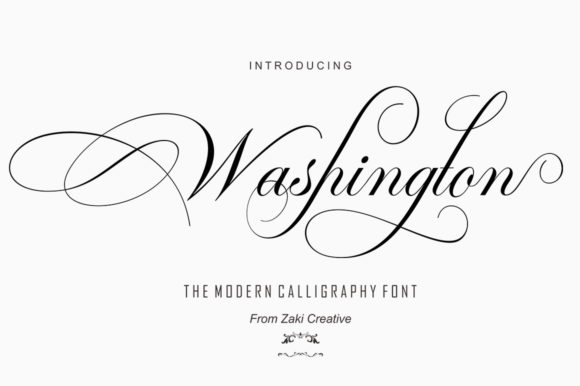
Unleash the Enchanting Charm of Washington Script: Your Gateway to Design Excellence
Welcome to the world of Washington Script, a script font that embodies sophistication and grace. Its timeless elegance elevates your designs to new heights, captivating audiences with its refined strokes and alluring curves. Experience the allure of a font that emanates artistry and charm, leaving an indelible mark on your creative endeavors.
Washington Script's meticulously crafted alternates and ligatures ignite your imagination, offering endless possibilities for self-expression. It's the perfect font to weave magic into your flip card designs, creating beautiful and memorable visual experiences. Let your creativity soar as you discover the transformative power of Washington Script, transforming ordinary designs into extraordinary masterpieces.
With Washington Script, you'll effortlessly capture the essence of sophistication and elegance. Its PUA encoding makes accessing the font's stunning glyphs and ligatures a breeze, empowering you to effortlessly add a touch of refinement and personality to your projects.
Embrace the allure of Washington Script and immerse yourself in a world of creative possibilities. Let your designs blossom with sophistication and grace, leaving a lasting impression that captivates and inspires. Seize the moment and elevate your designs to new heights with Washington Script, the font that ignites your passion and fuels your creativity.